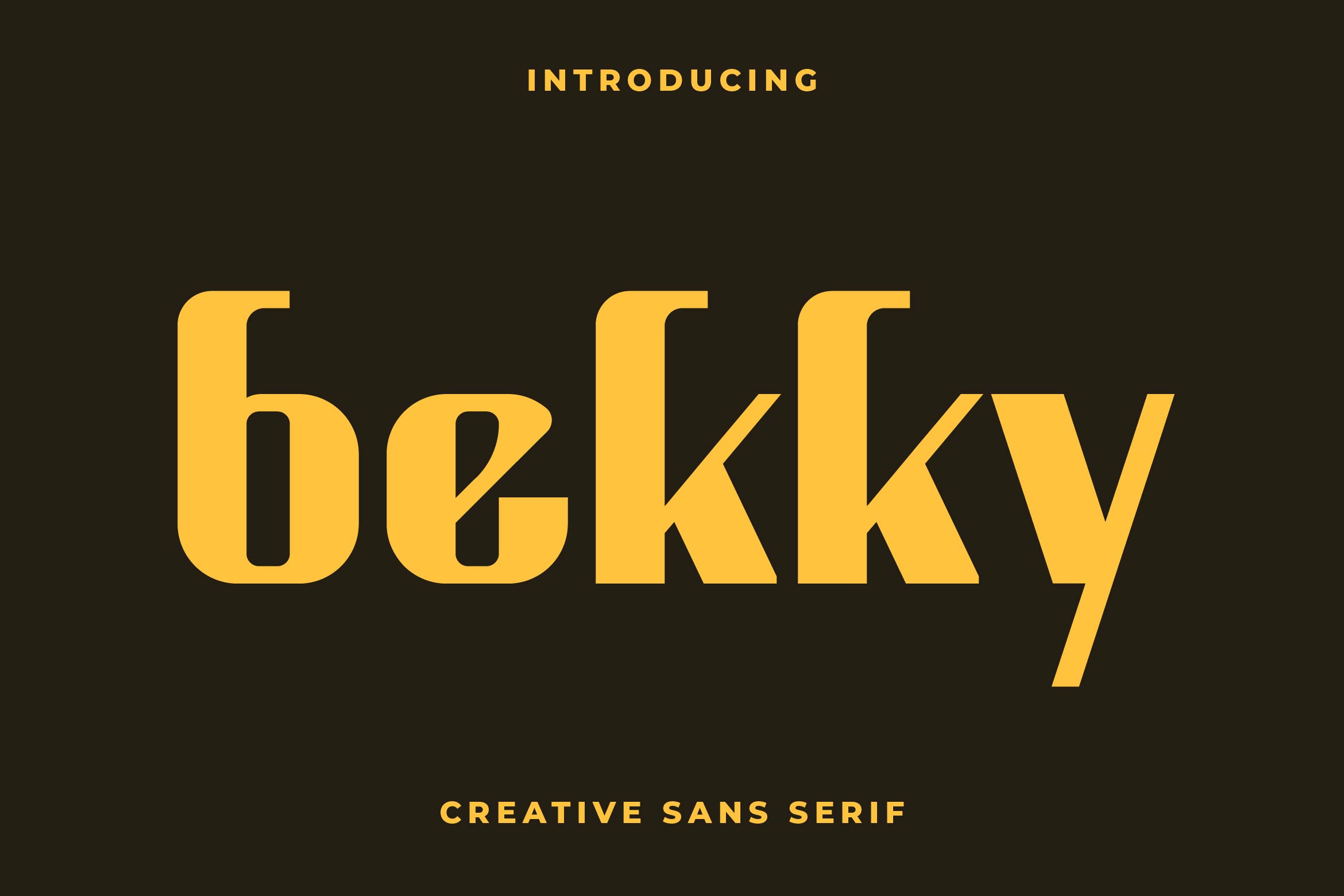
- Bekky Creative Sans Serif Font
Bekky is a stylish and contemporary sans serif font that blends clean design with a unique creative touch. Its smooth curves, balanced spacing, and geometric structure make it perfect for branding, editorial layouts, packaging, social media graphics, website headers, and modern advertising projects.
This versatile typeface offers excellent readability while maintaining a distinctive and memorable look, making it ideal for creative industries, fashion brands, and digital startups. Bekky adapts effortlessly to both bold headlines and sleek text applications.
Elevate your typography with Bekky — the creative sans serif font that combines elegance, modern style, and originality in every detail.